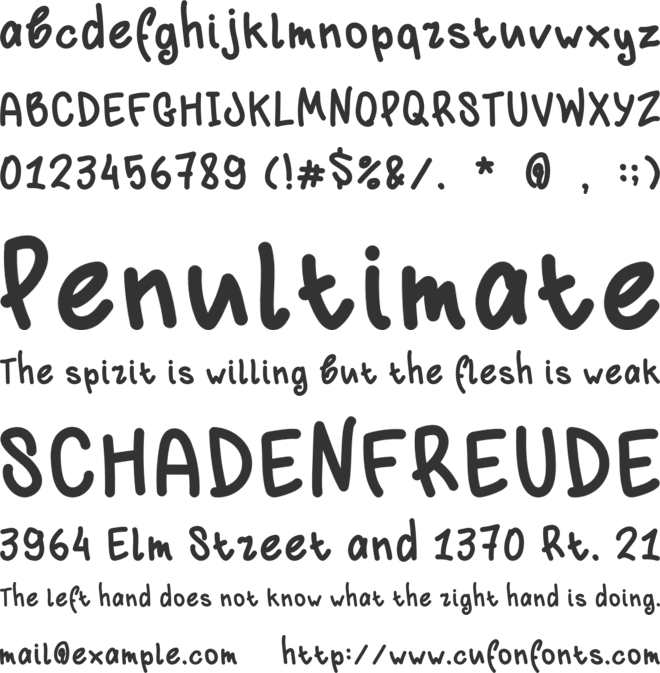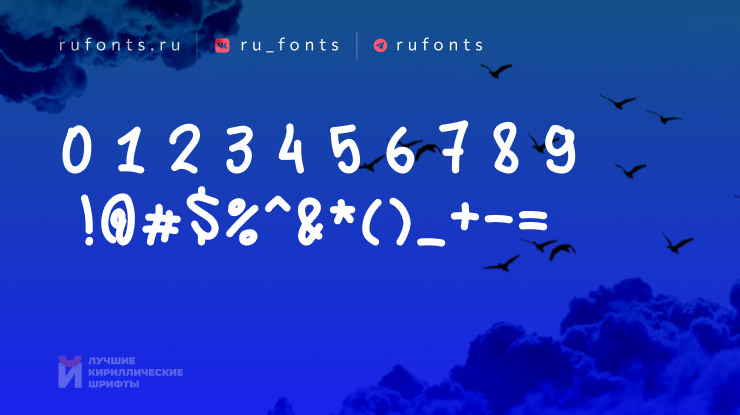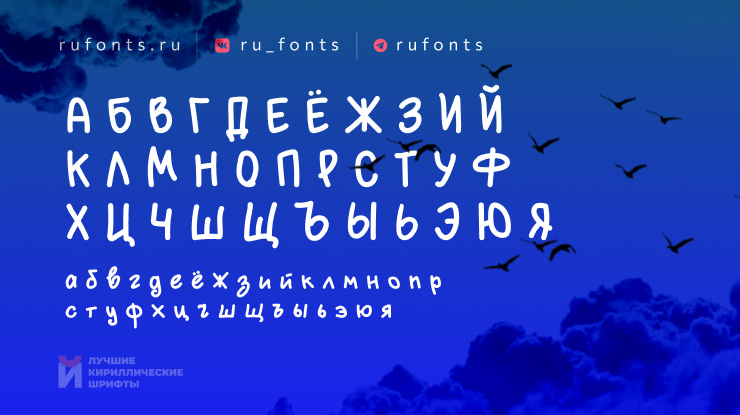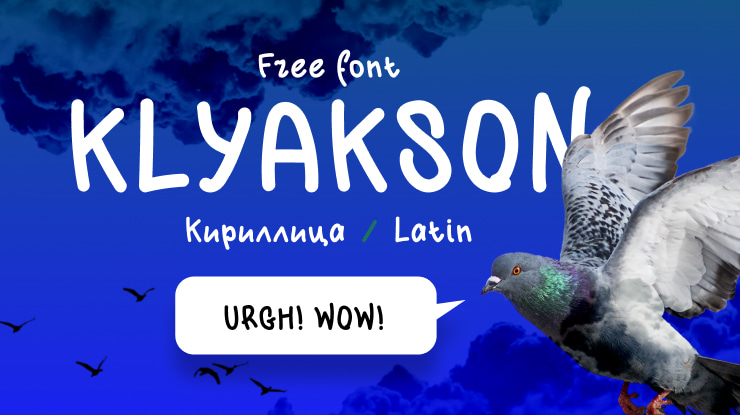
Klyakson Font
Free hand drawn font with cyrrilic support made by Alexander Veek from community with free Cyrillic fonts - https://t.me/rufonts join us!